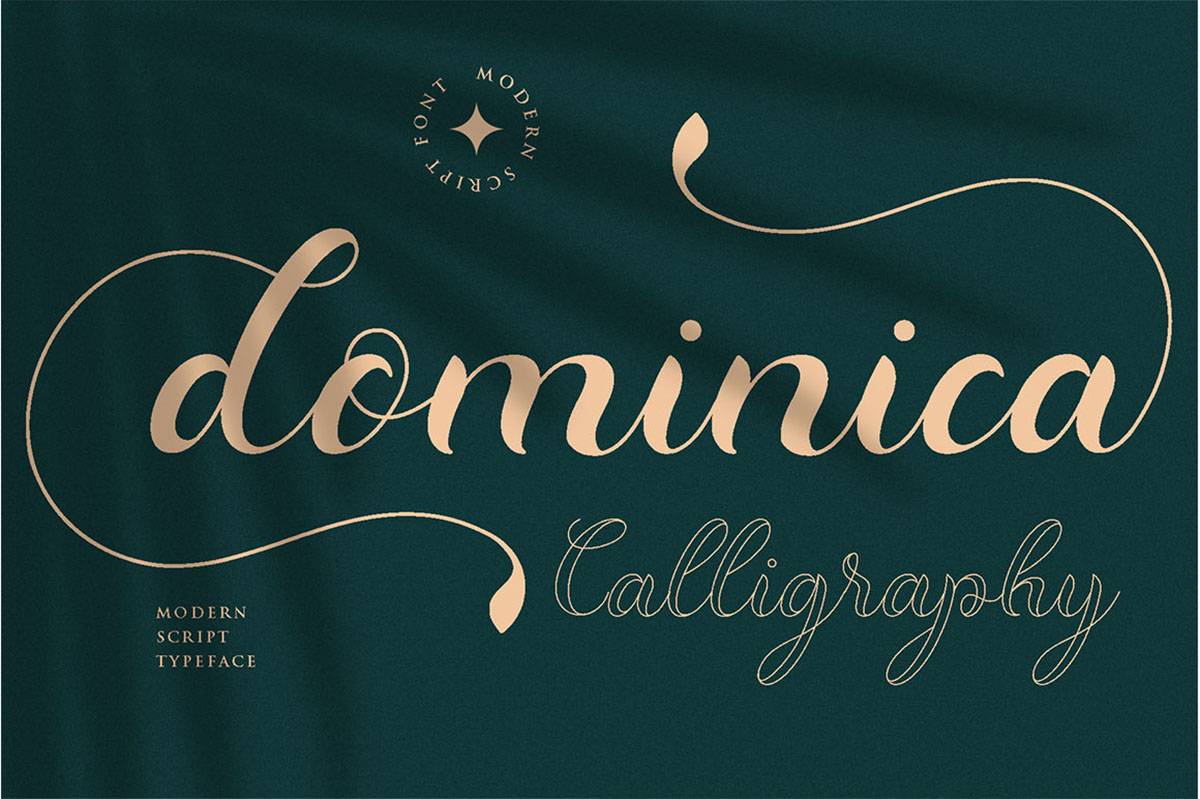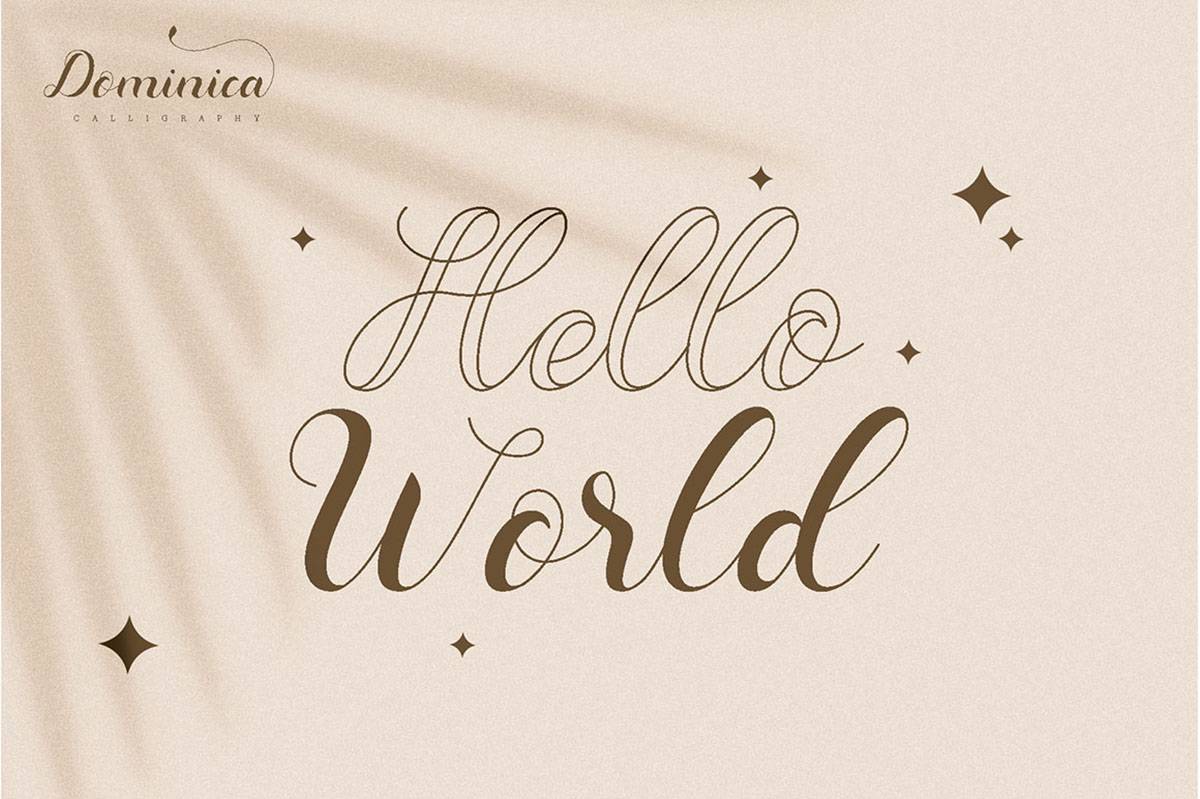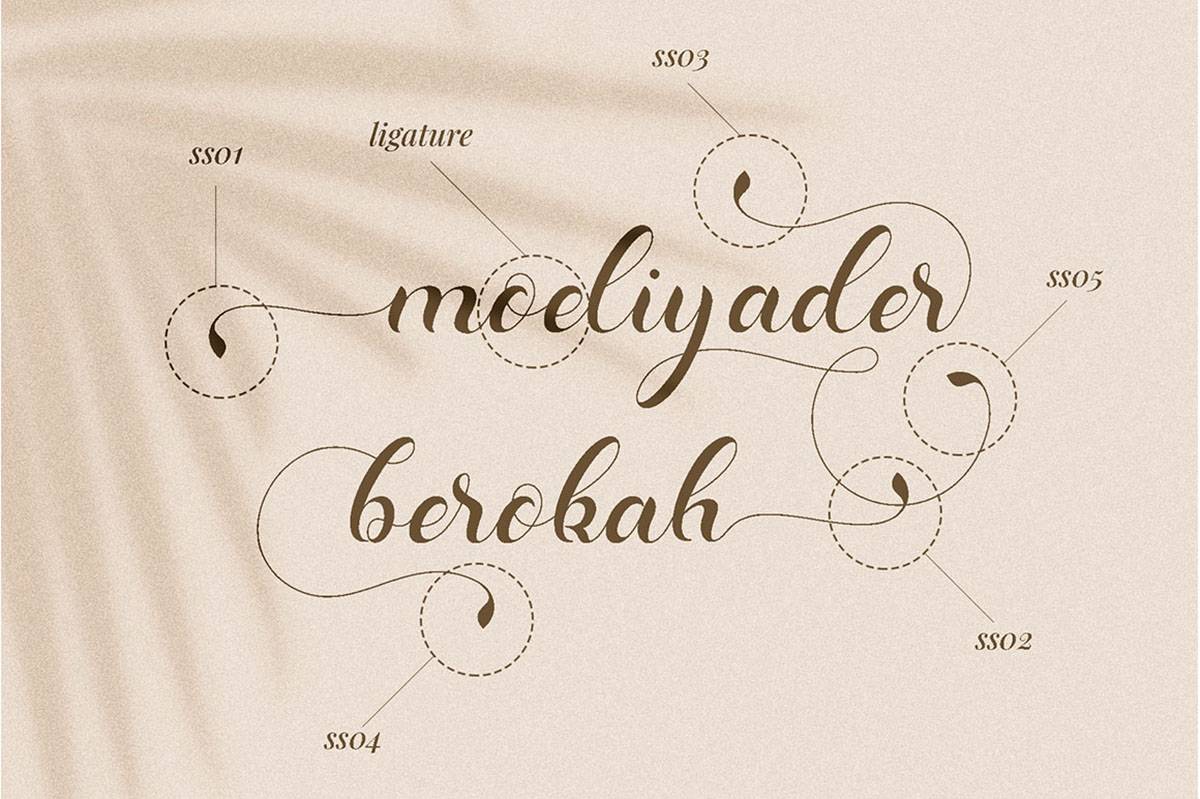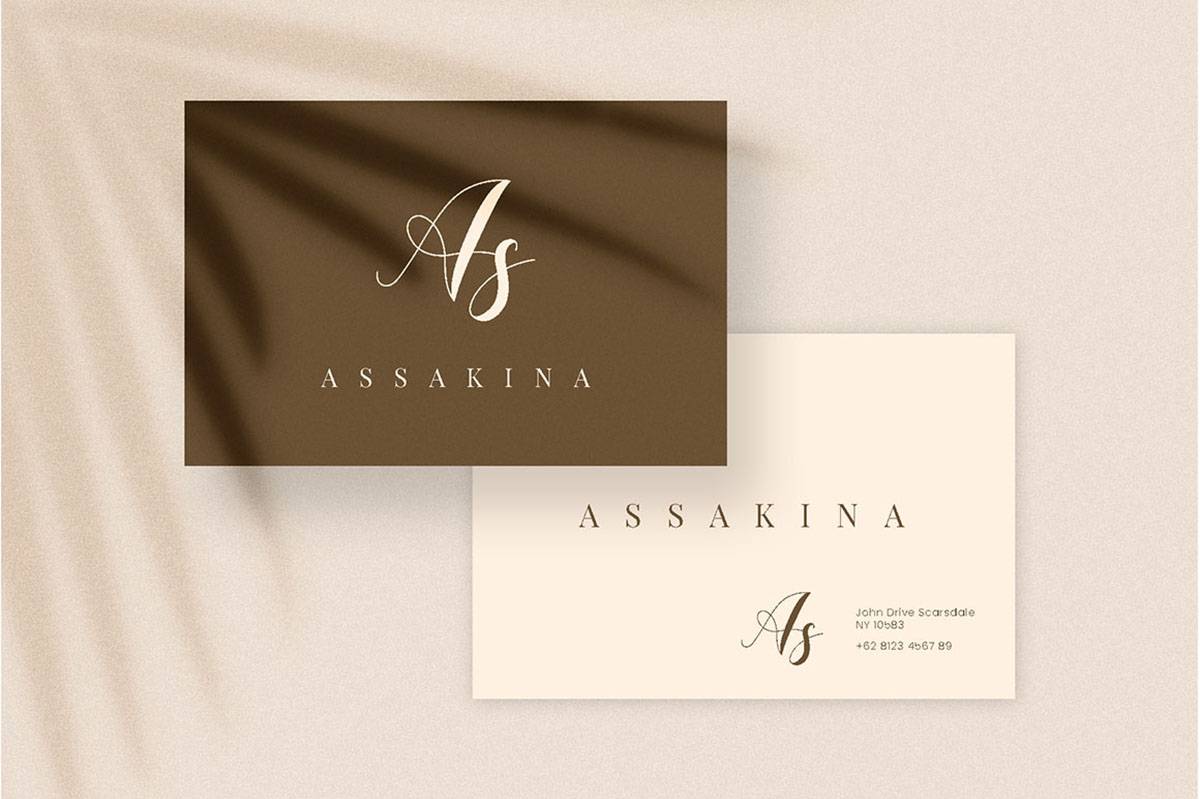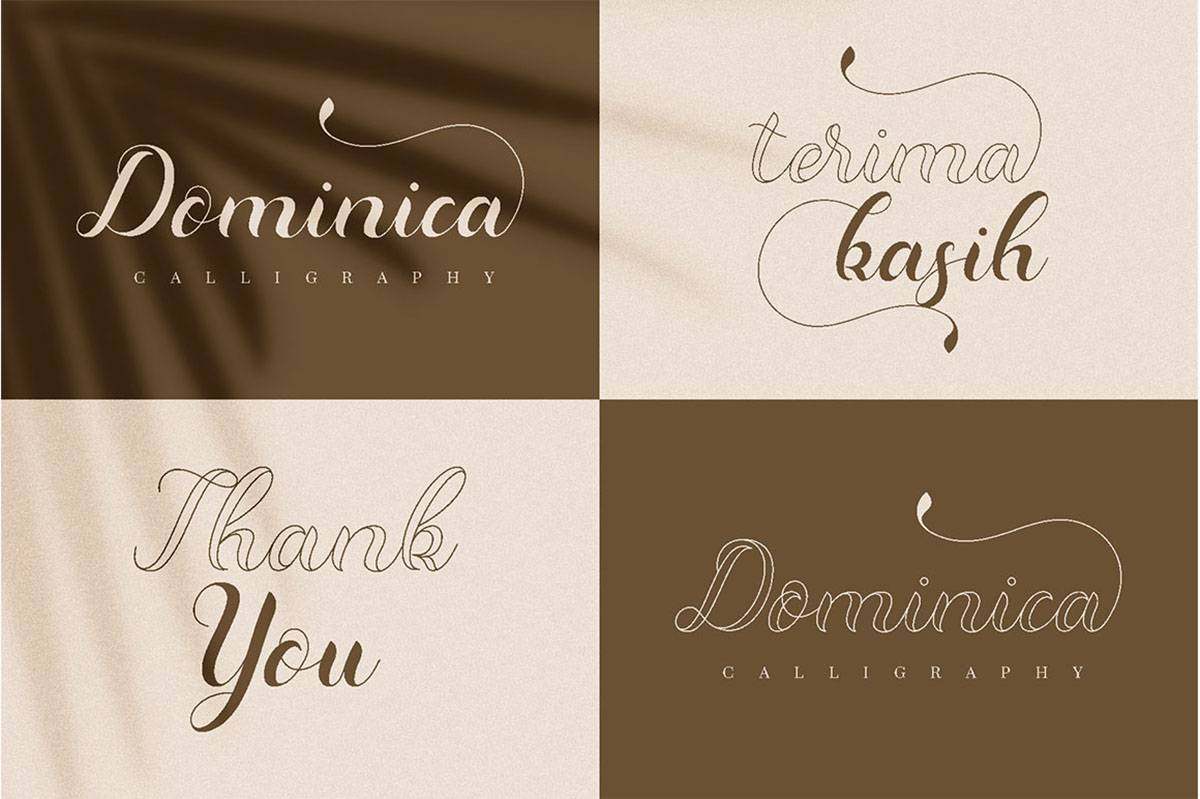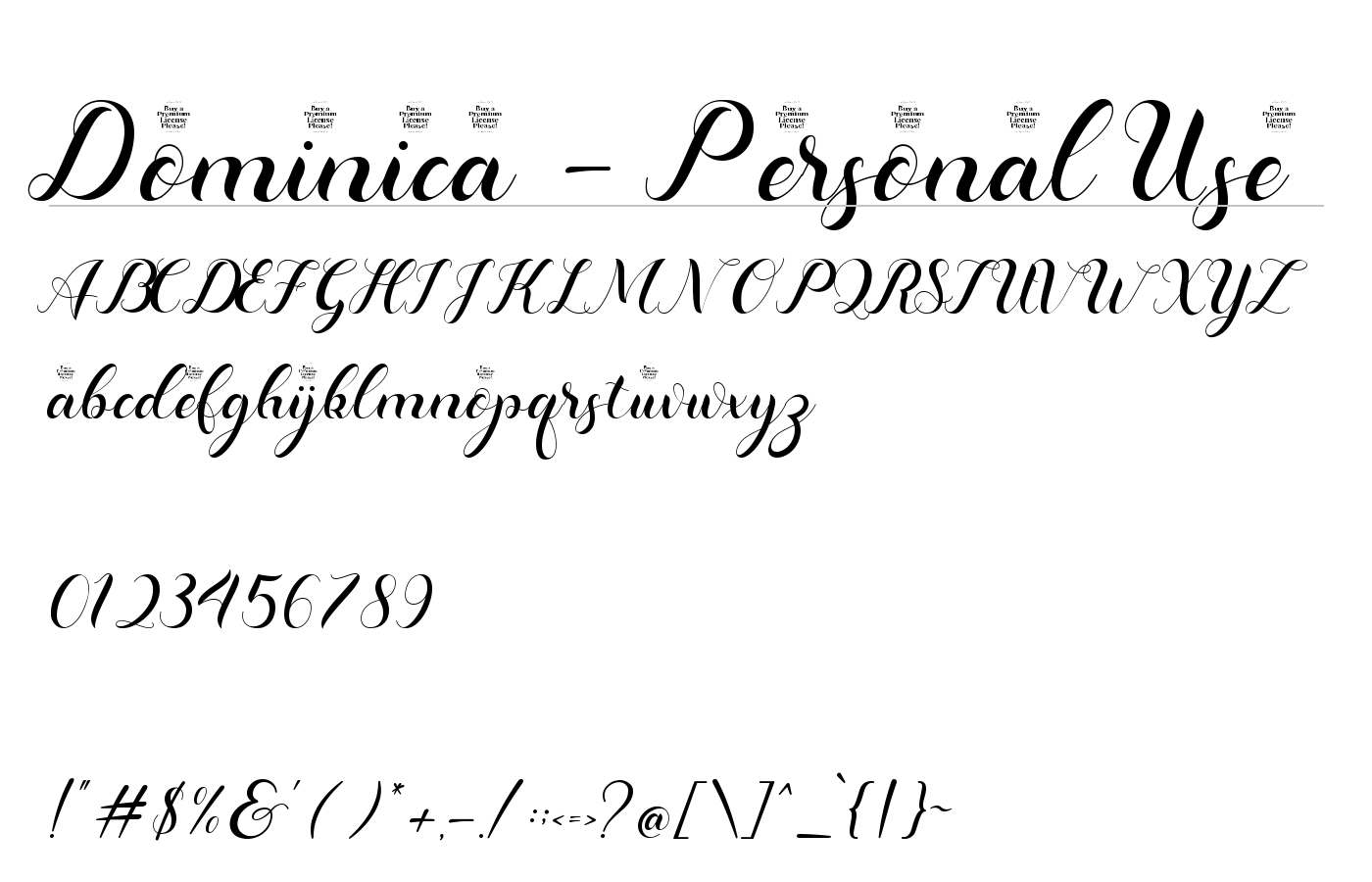
Dominica Calligraphy is an elegant script font with flowing, delicate strokes and refined swashes that add a graceful, personal touch to any design. Its moderate contrast and smooth curves make it perfect for luxury branding, wedding invitations, and sophisticated editorial projects where a stylish, handcrafted feel is desired. This font combines classic calligraphy charm with modern readability, making it ideal for logos, headlines, and decorative purposes.
Dominica Calligraphy Font
About Dominica Calligraphy Font
| Font family | Dominica Calligraphy Font |
| Languages supported | Latin, Greek, Thai, Symbols |
| Designer | Ride Studio 2021 |